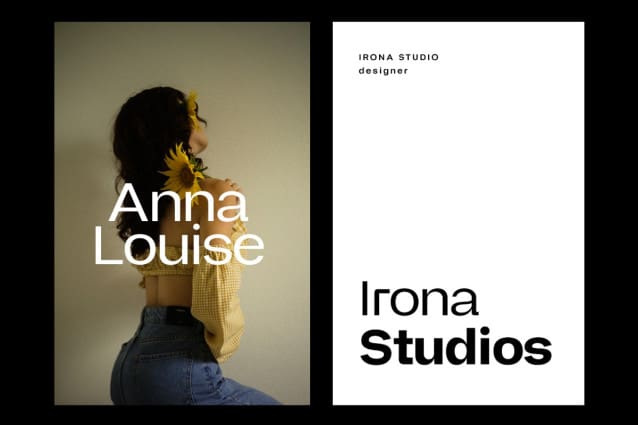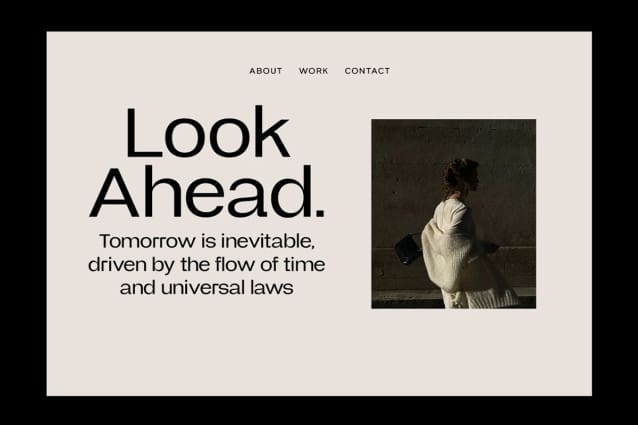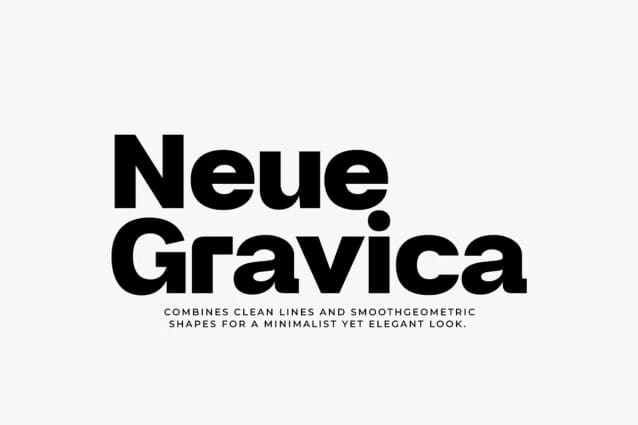
Neue Gravica Font Family
Neue Gravica Font Family is a modern display typeface that blends bold geometric forms with smooth, clean lines. Its sleek design is perfect for making a striking impact in both print and digital media. Whether you’re creating logos, branding materials, or web designs, this typeface offers versatility with a minimalist yet elegant look. Its strong, contemporary appearance makes it ideal for bold headlines, posters, and visual identities that need to stand out.